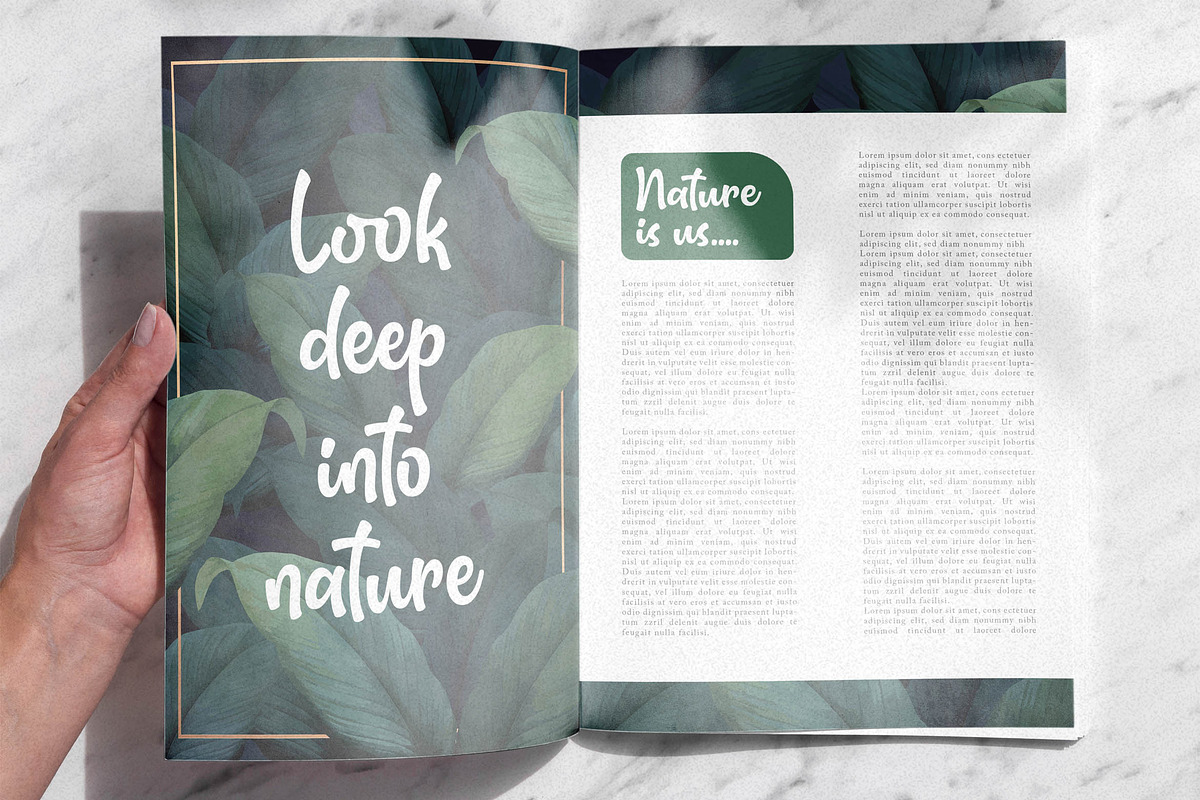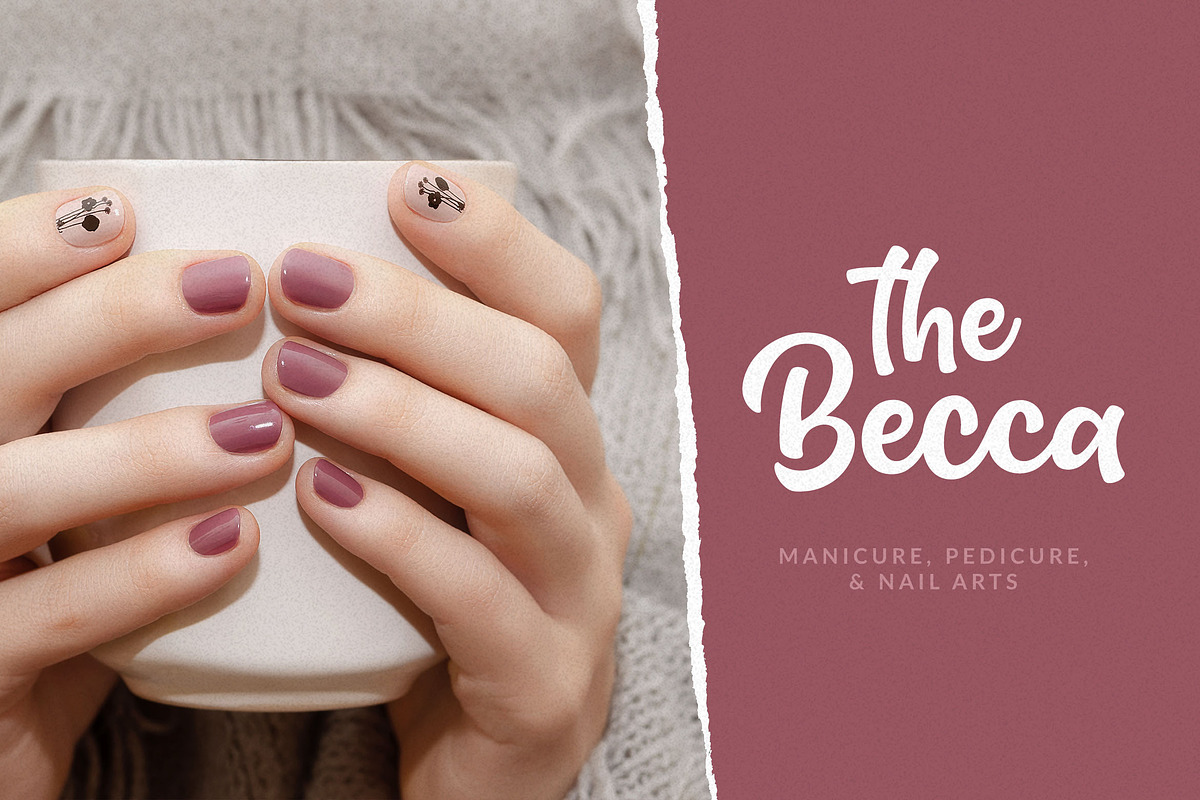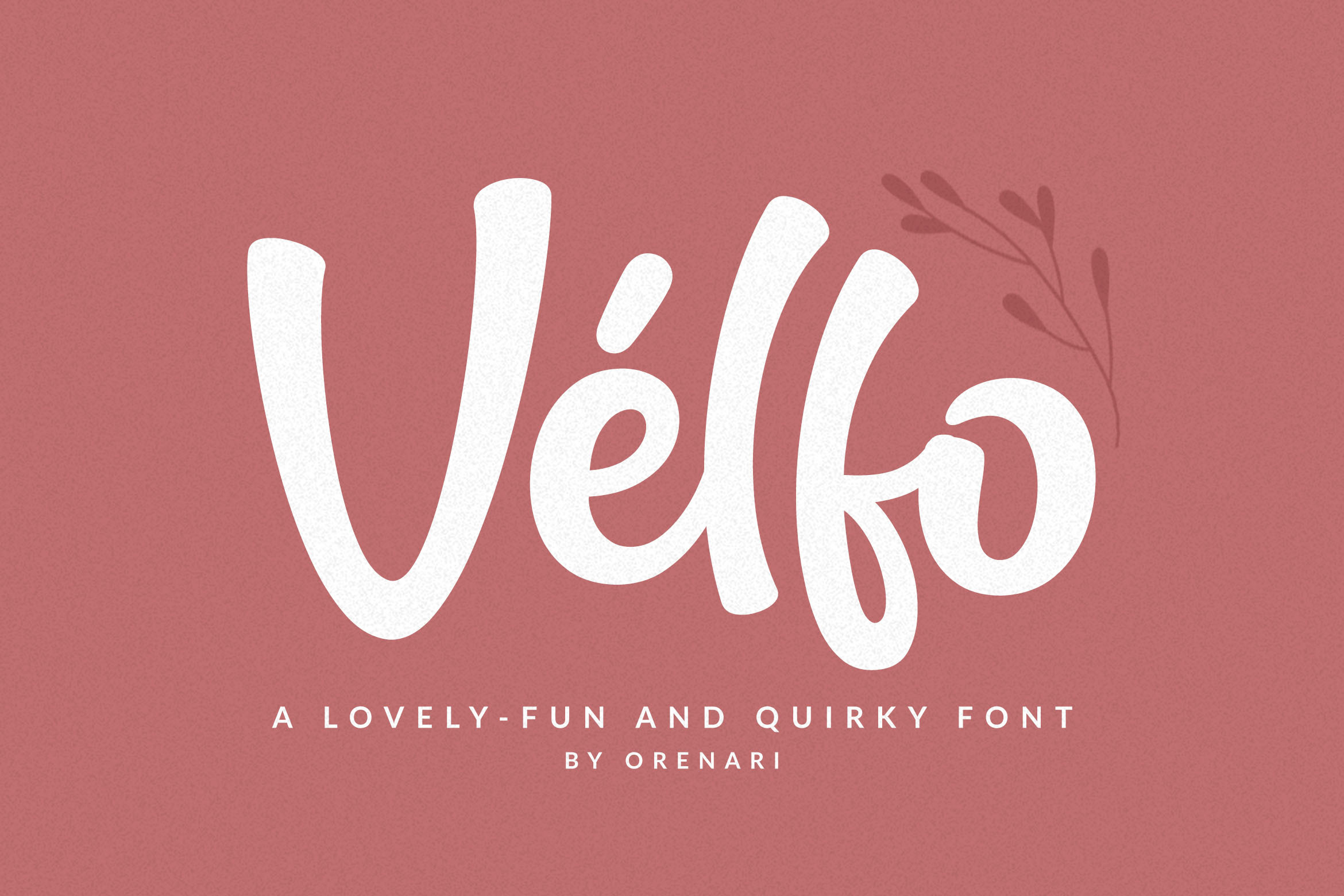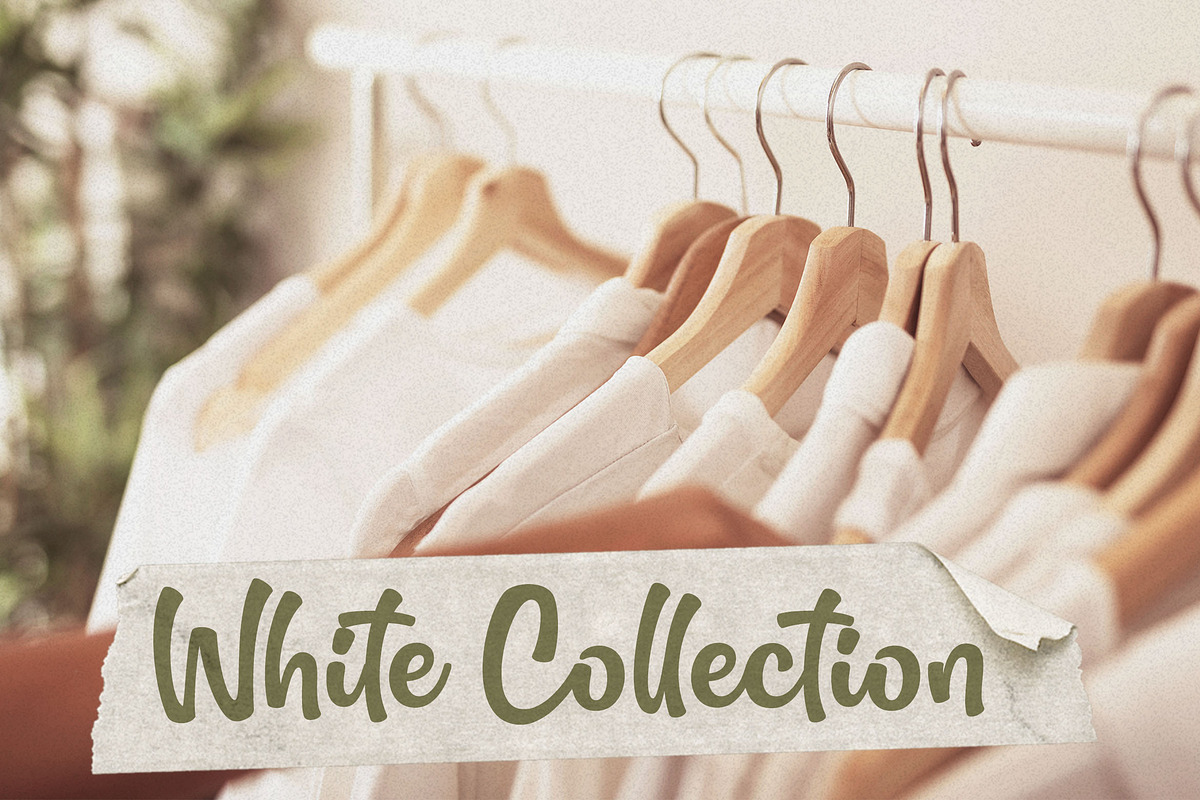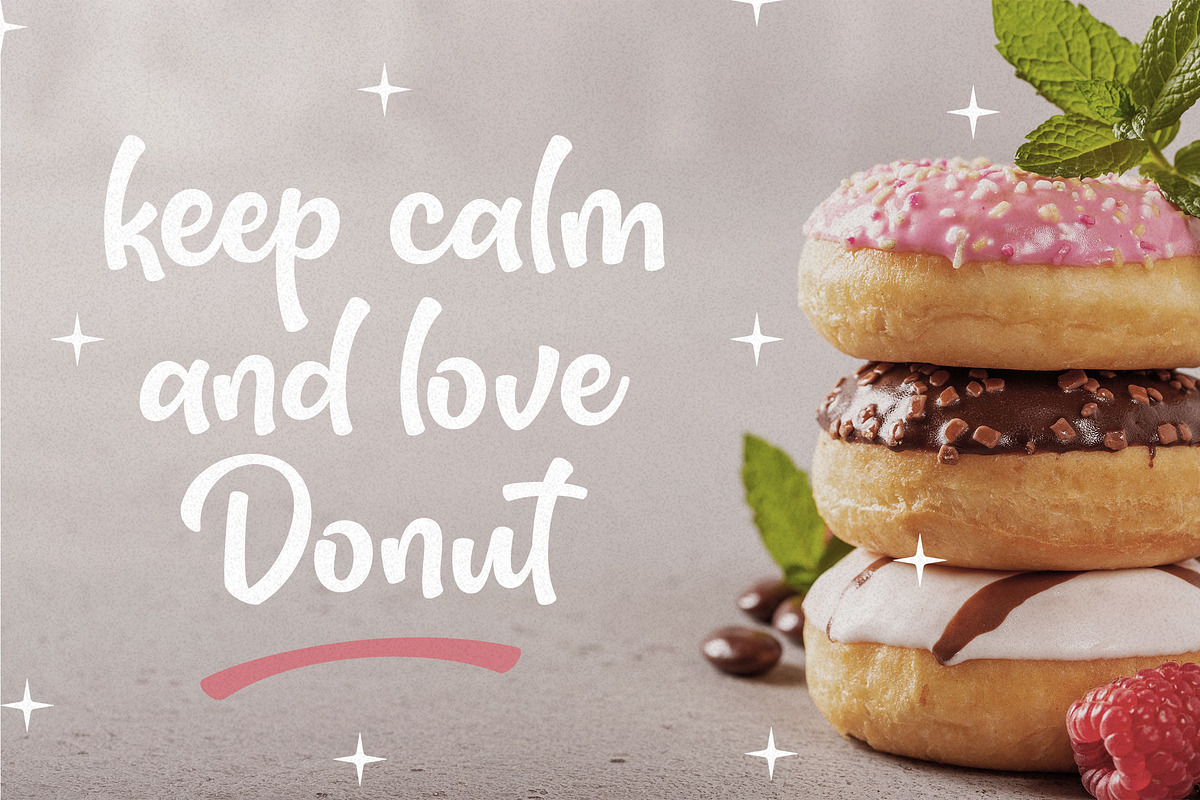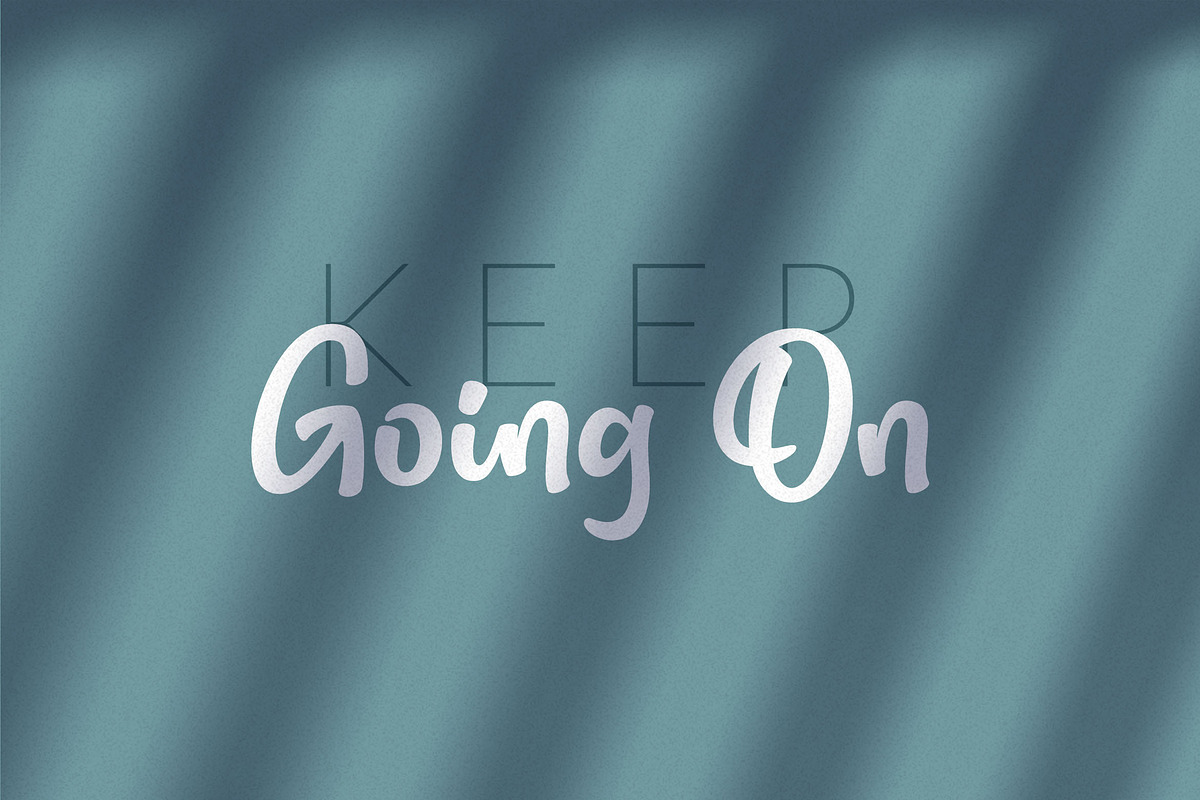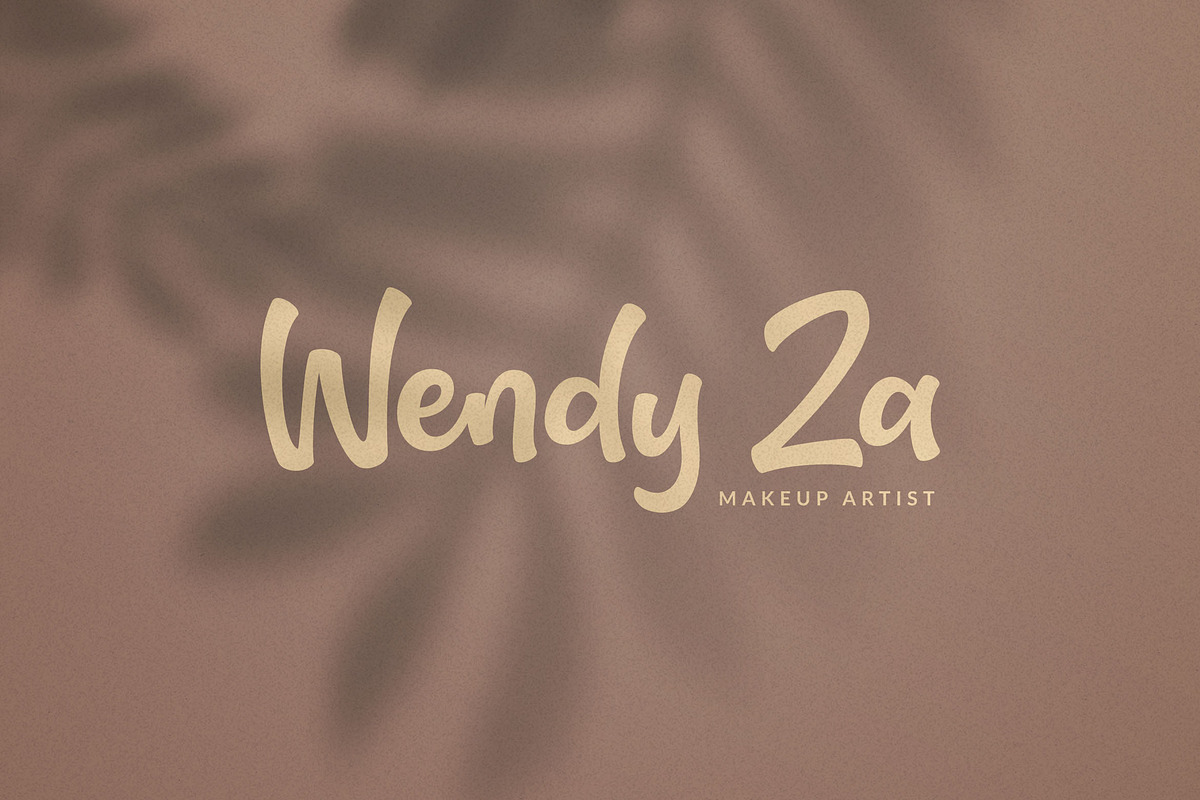
Velfo ~ lovely-fun and quirky font
Velfo is a lovely-fun and quirky display font. The autentic lovely touch makes it a perfect mates for your projects, in any design purposes.